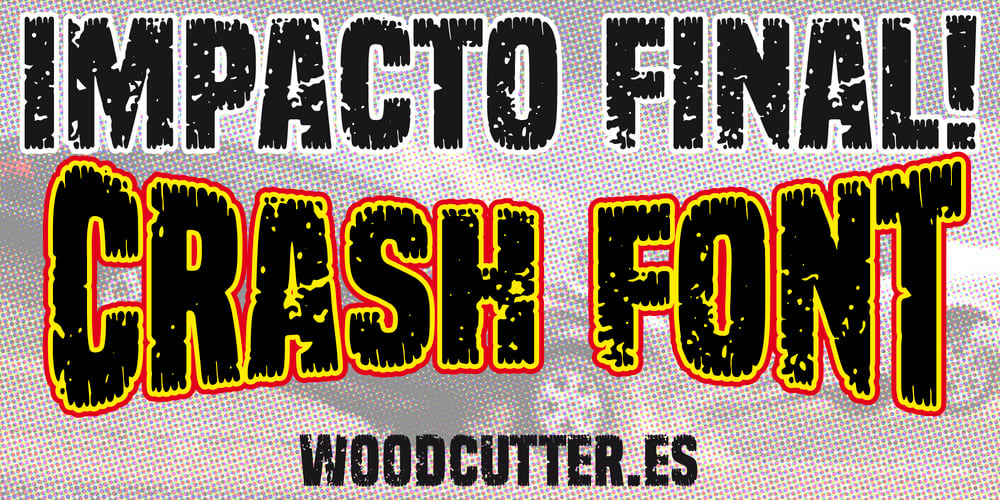
Impacto Final Font Family was designed by Jordi Manero and published by Woodcutter. Impacto Final contains 1 styles and family package options. “Impacto Final” is an uppercase font characterized by its distressed and broken letters, creating a dramatic and powerful appearance. The letters seem to have endured an explosion or strong impact, adding a sense of chaos and destruction. Each character shows imperfections and fractures, giving it a unique and bold style, ideal for conveying strength, tension, or dynamism in graphic projects. Perfect for action movie titles, striking posters, or any design that seeks a robust and aggressive aesthetic.